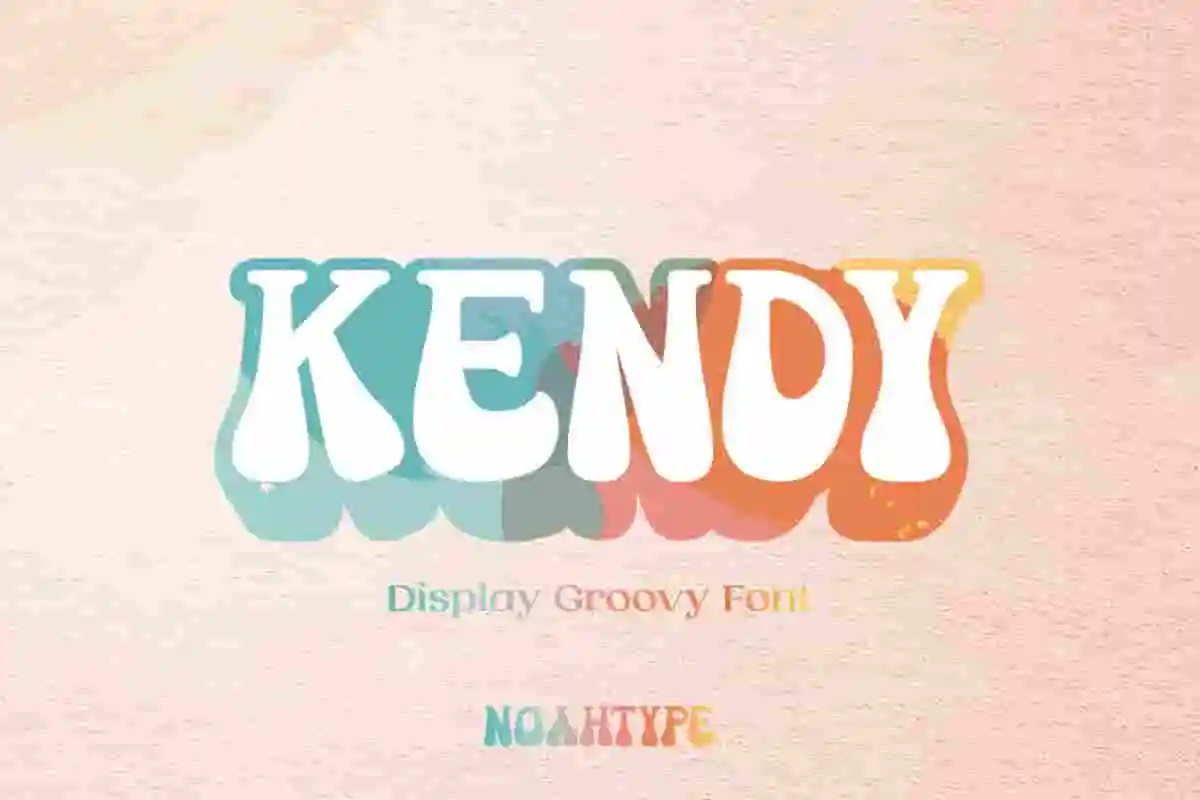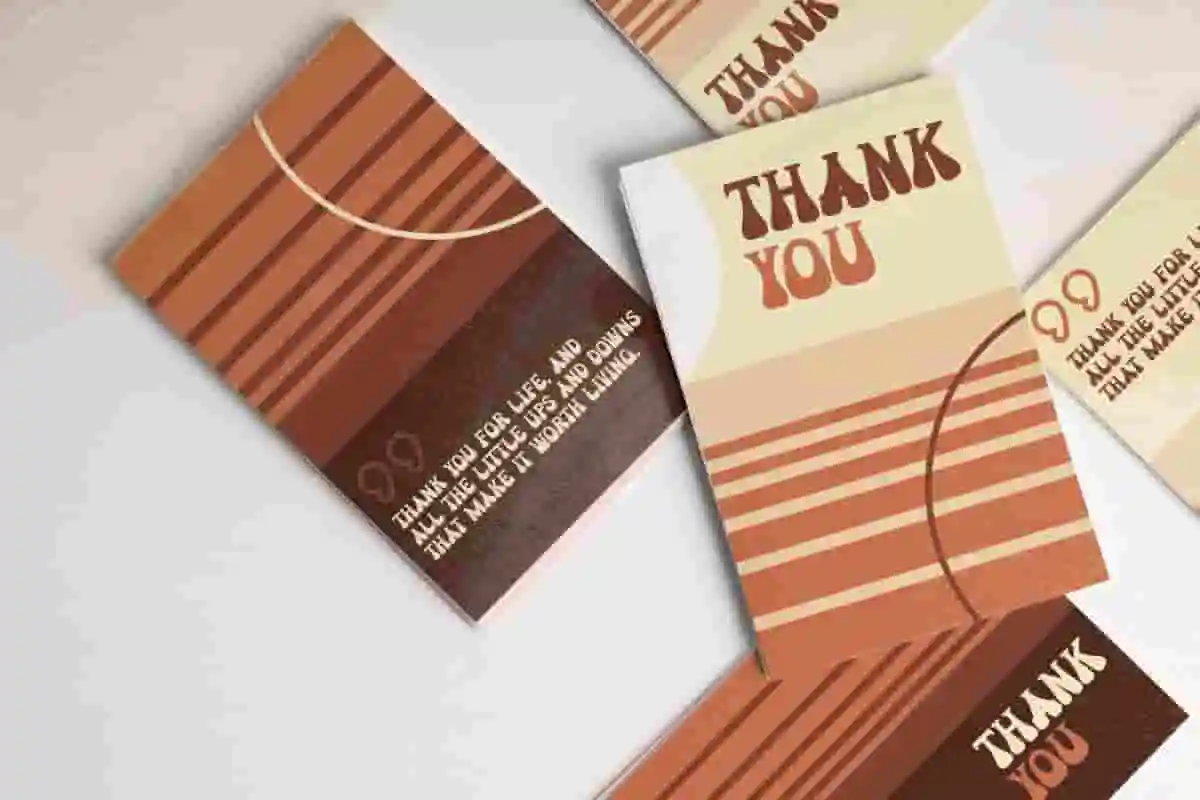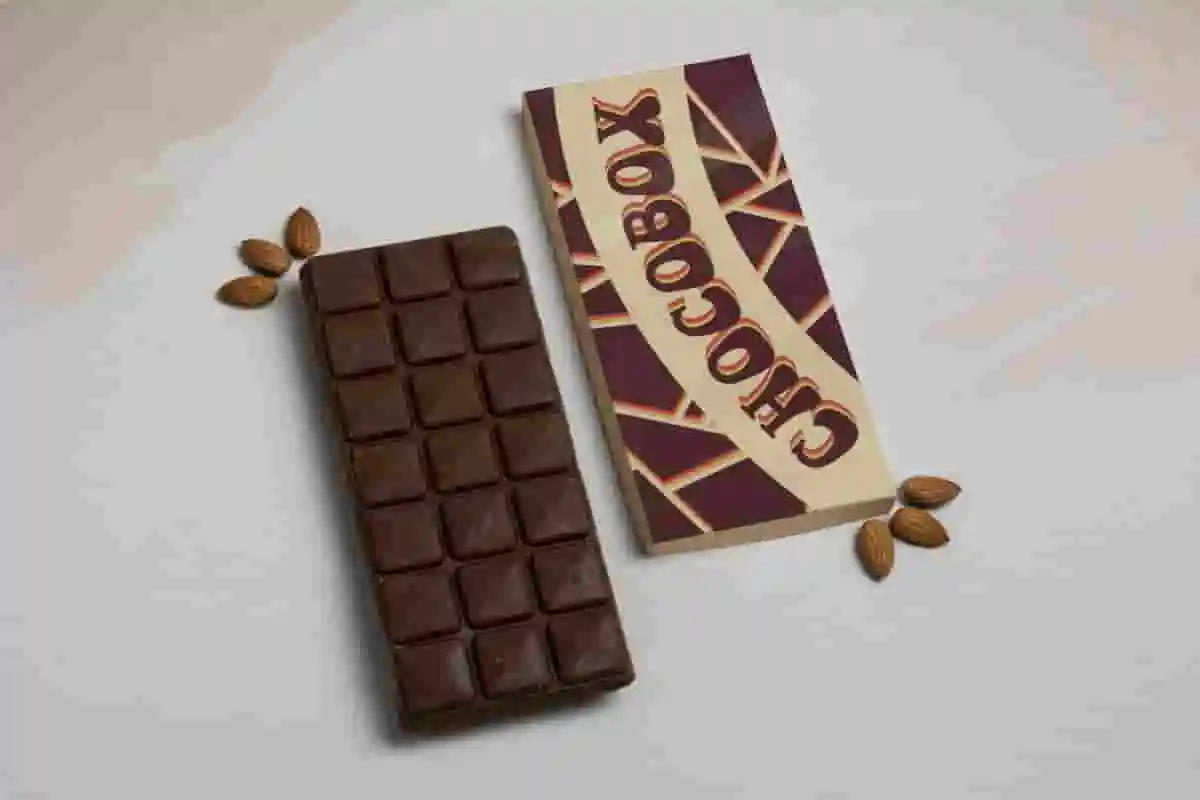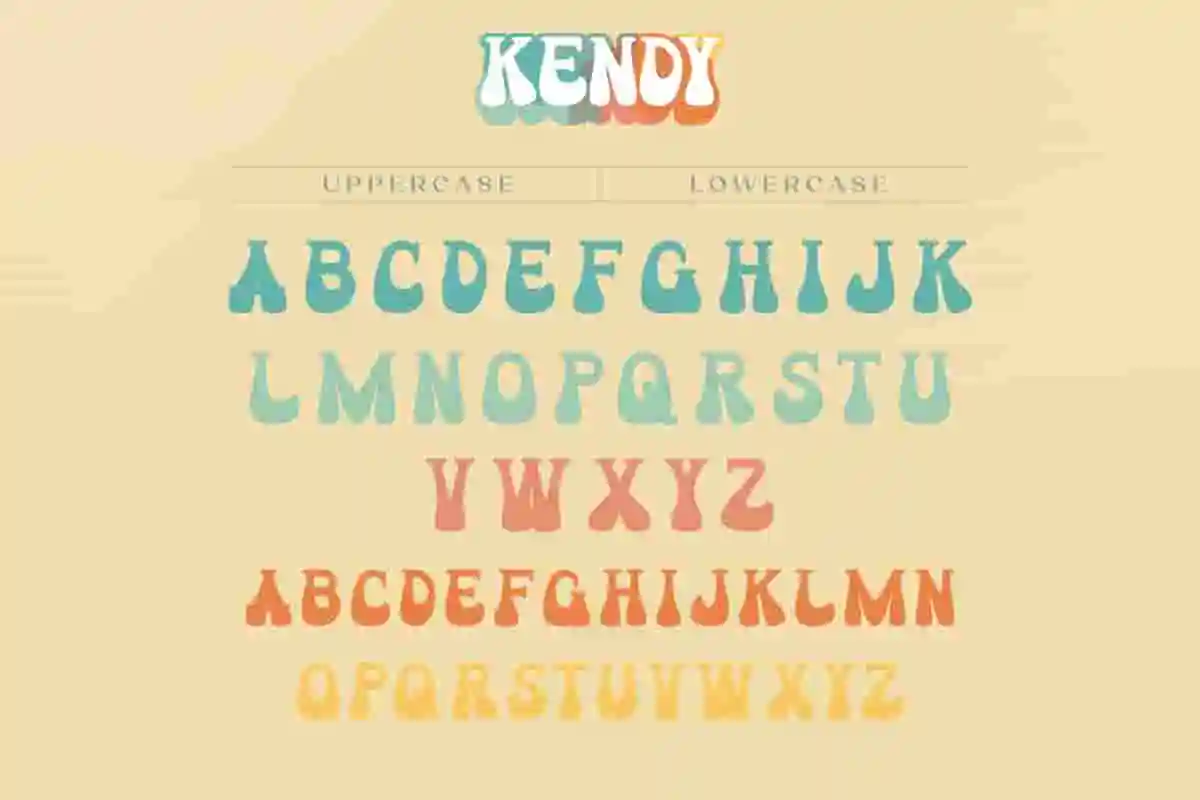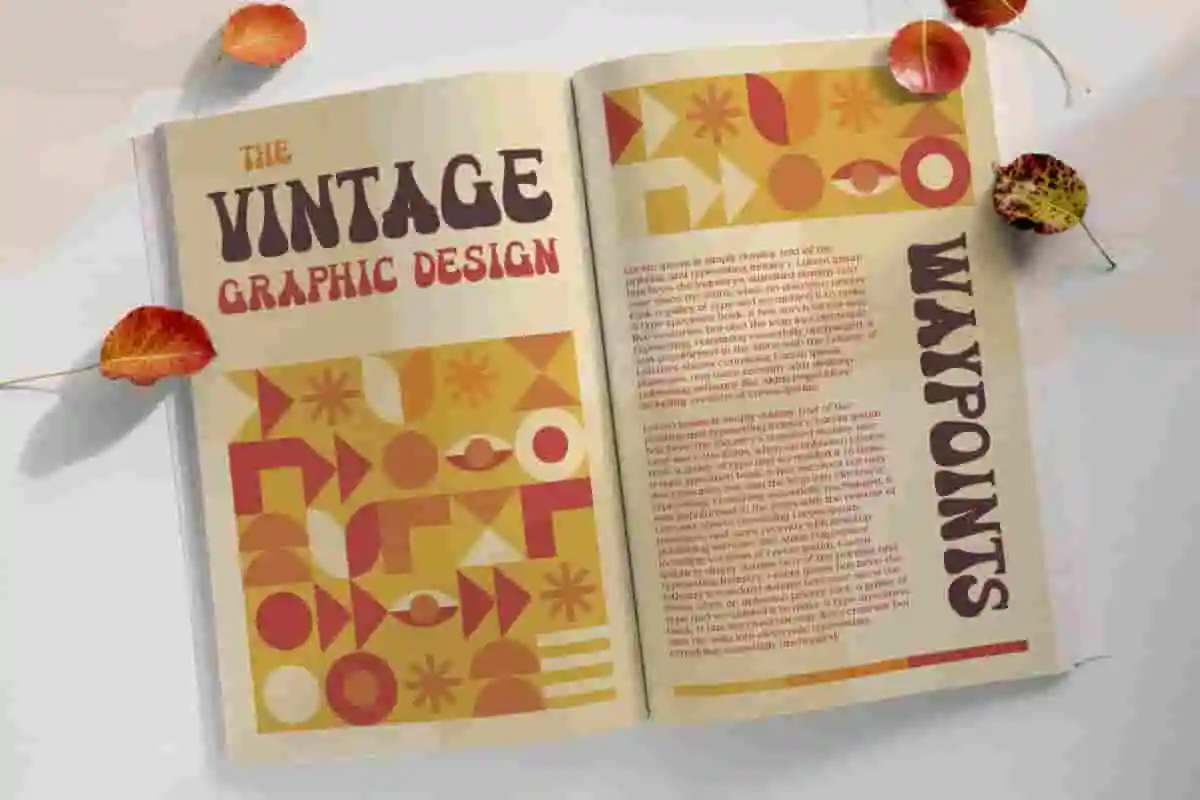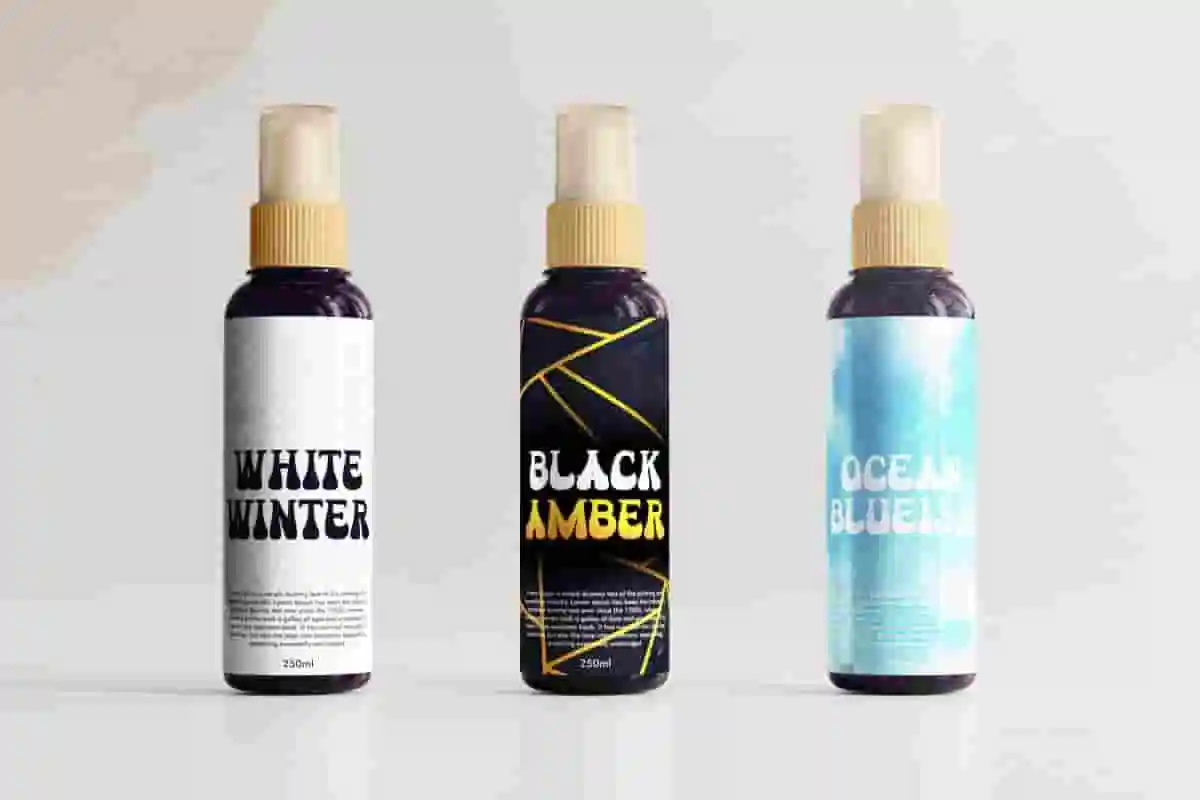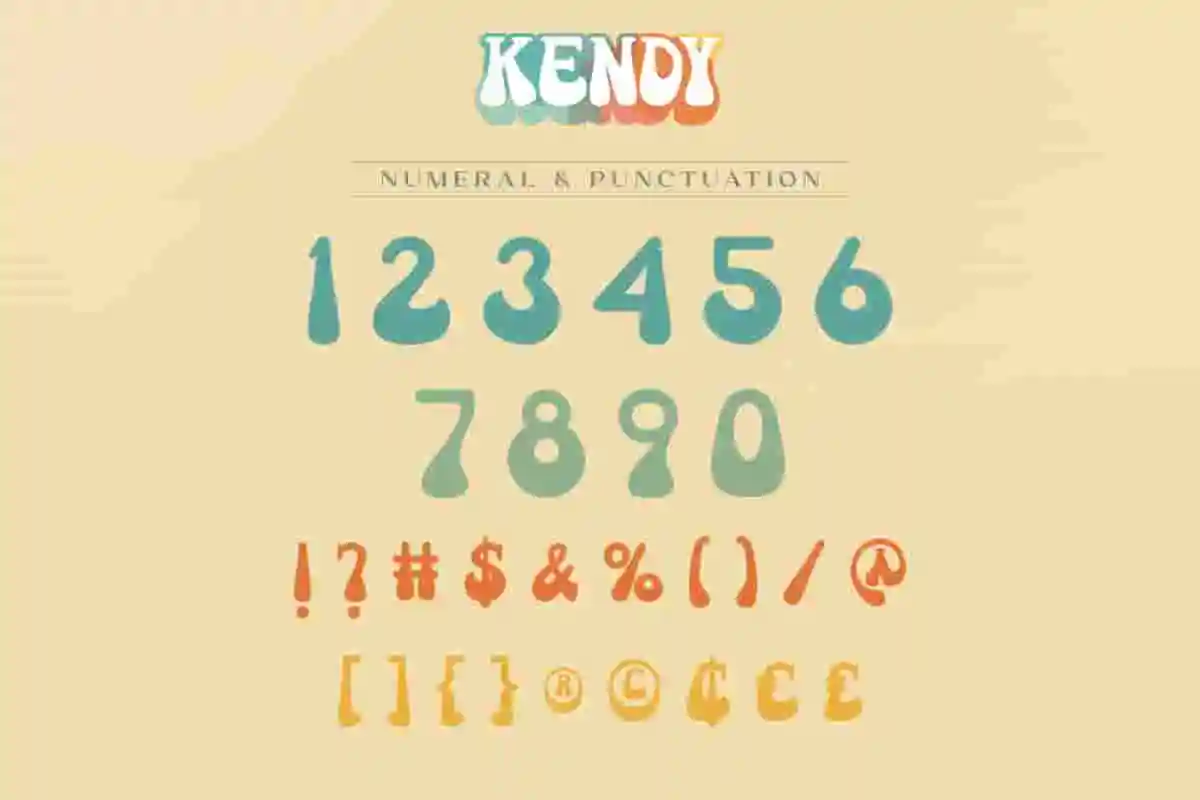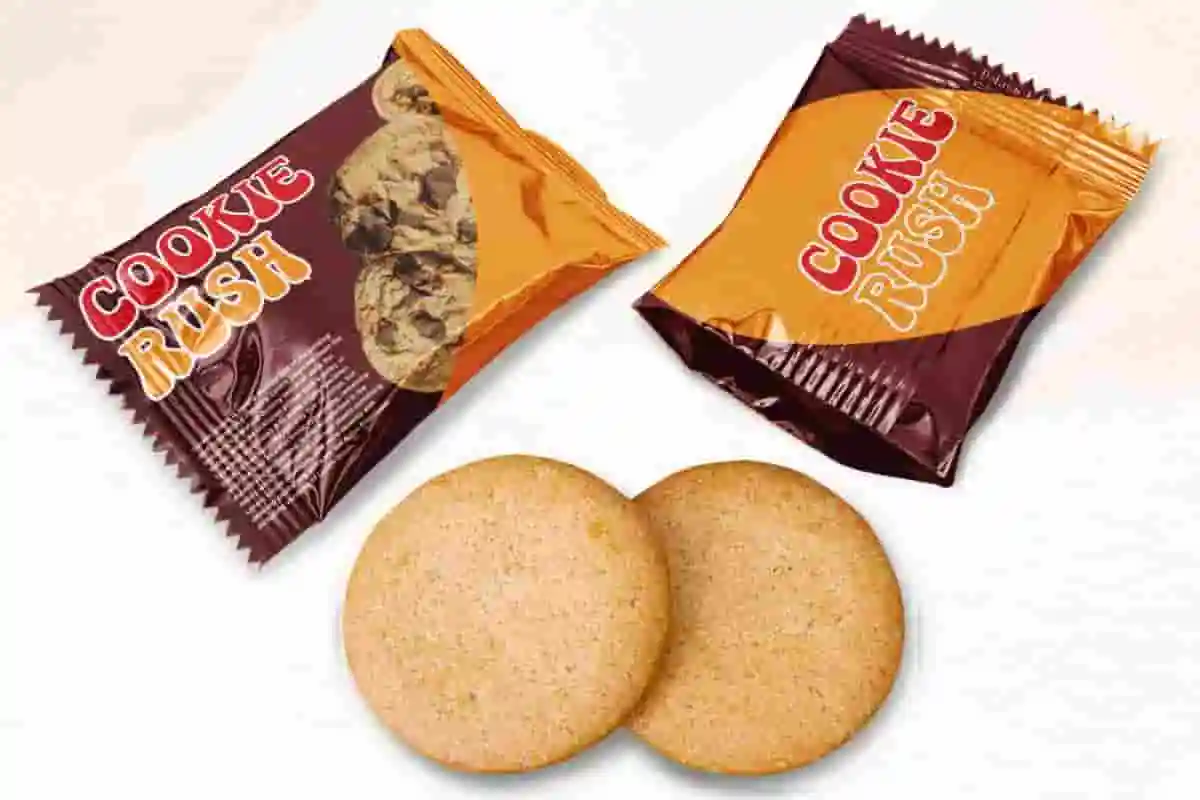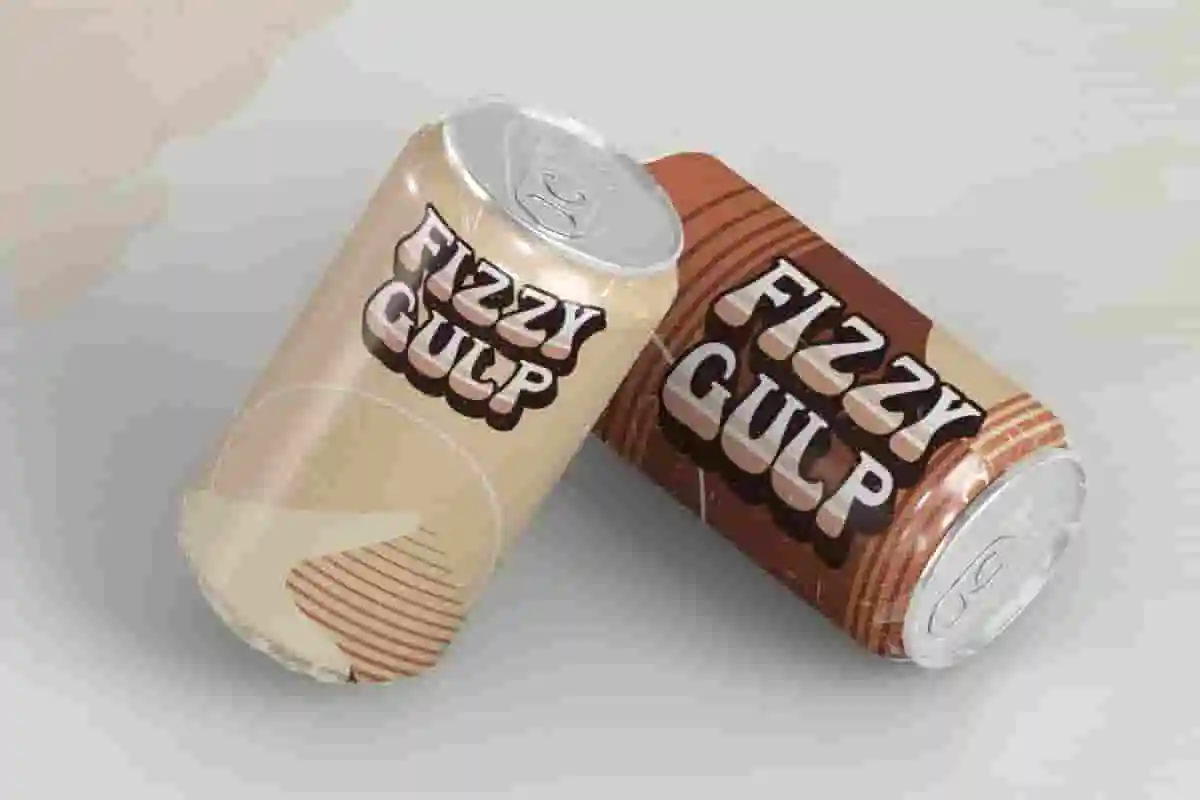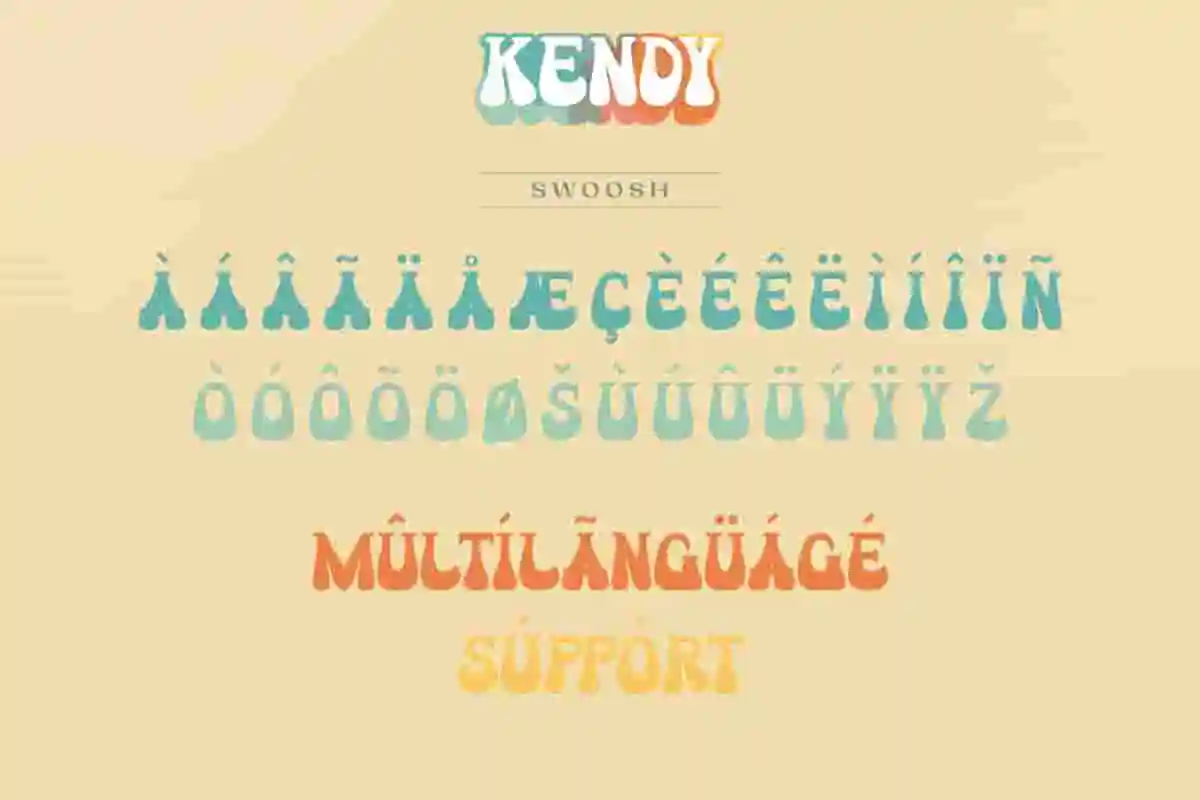
Kendy Font is a groovy display font. This font is inspired by the modern groovy style. The font has a bold, funny dan unique style with a clean look that will bring an exclusive font to the design. It will also work for businesses or companies such as, fashion, food and beverage, games, retails, school, signs, writers etc.
It includes full set of ALL CAPS with different size between uppercase and lowercase, Numerals and Punctuation. The font is perfect for many projects, branding logos, product packaging, posters, signage, social media post, titles, webpage and many more!
Kendy Font supports multilingual languages (including multiple currency symbols). With a simple installation, it will be ready to use both on Windows machine or Mac. It really common in almost any software (Character Map for Windows and Font Book for Mac). It work well on Adobe software such as Illustrator, Photoshop and several other software.